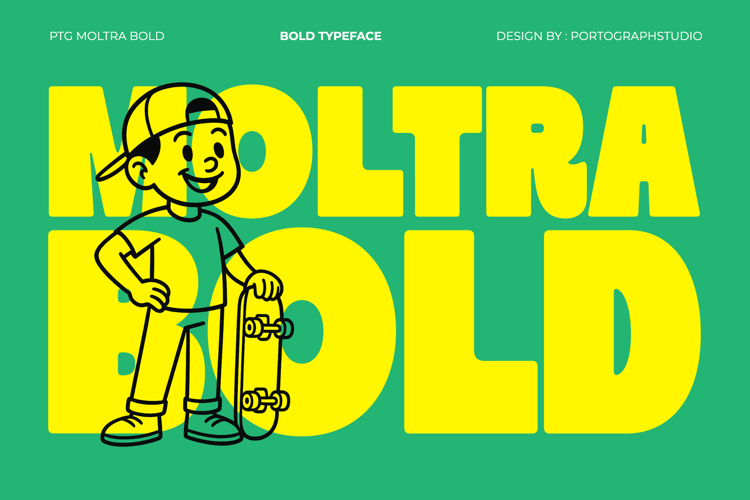
PTG Moltra Bold Font
Bring fun and confidence to your design with Moltra Bold, a chunky and playful display typeface full of character. Its bold shapes and friendly curves make it perfect for branding, packaging, posters, social media graphics, and children’s projects.